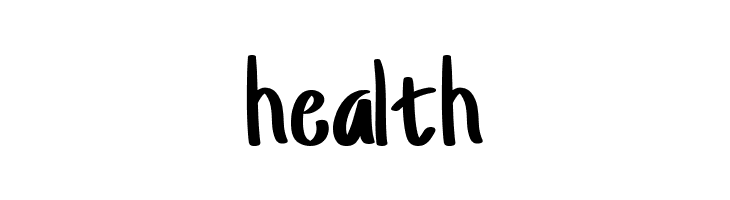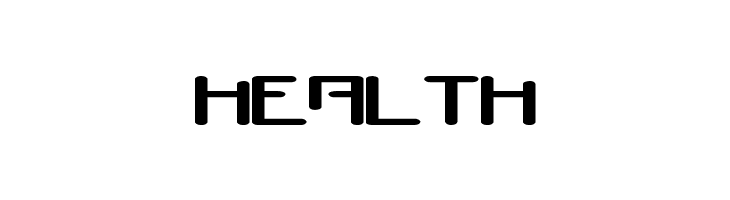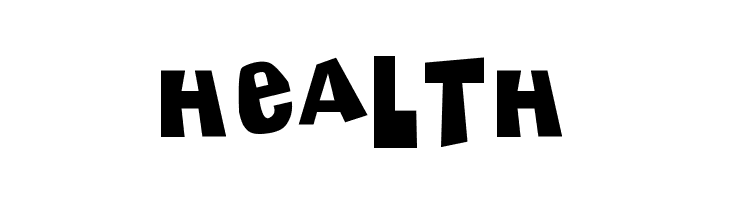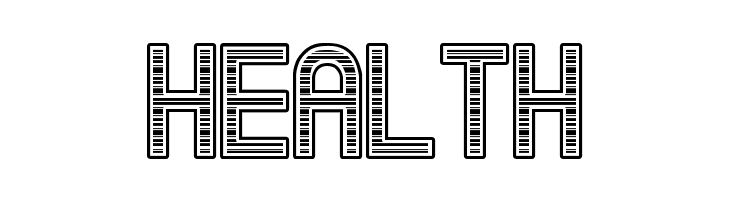
• Juno Reactor
• just a kid
• jusy
A bold, playful handwritten font with a lively and informal style.
• Jux Kadabra St
( Fonts by Southype )
A bold, decorative font with a striped pattern and geometric structure.
• K26ClippitySnippity
( Fonts by K26 Fonts )
A playful, bold font with quirky, uneven strokes and a whimsical style.
• Kabut Hitam
A lively and energetic handwritten font with fluid strokes and a casual style.
• Kalinka
A cursive, handwritten-style font with elegant, flowing strokes.
• Kanno
A bold, geometric font with a modern and structured design.
• Kanno Italic
A modern, italicized font with consistent stroke thickness and dynamic style.
• KARASHA
A bold, gothic-inspired font with sharp, angular lines and dramatic curves.